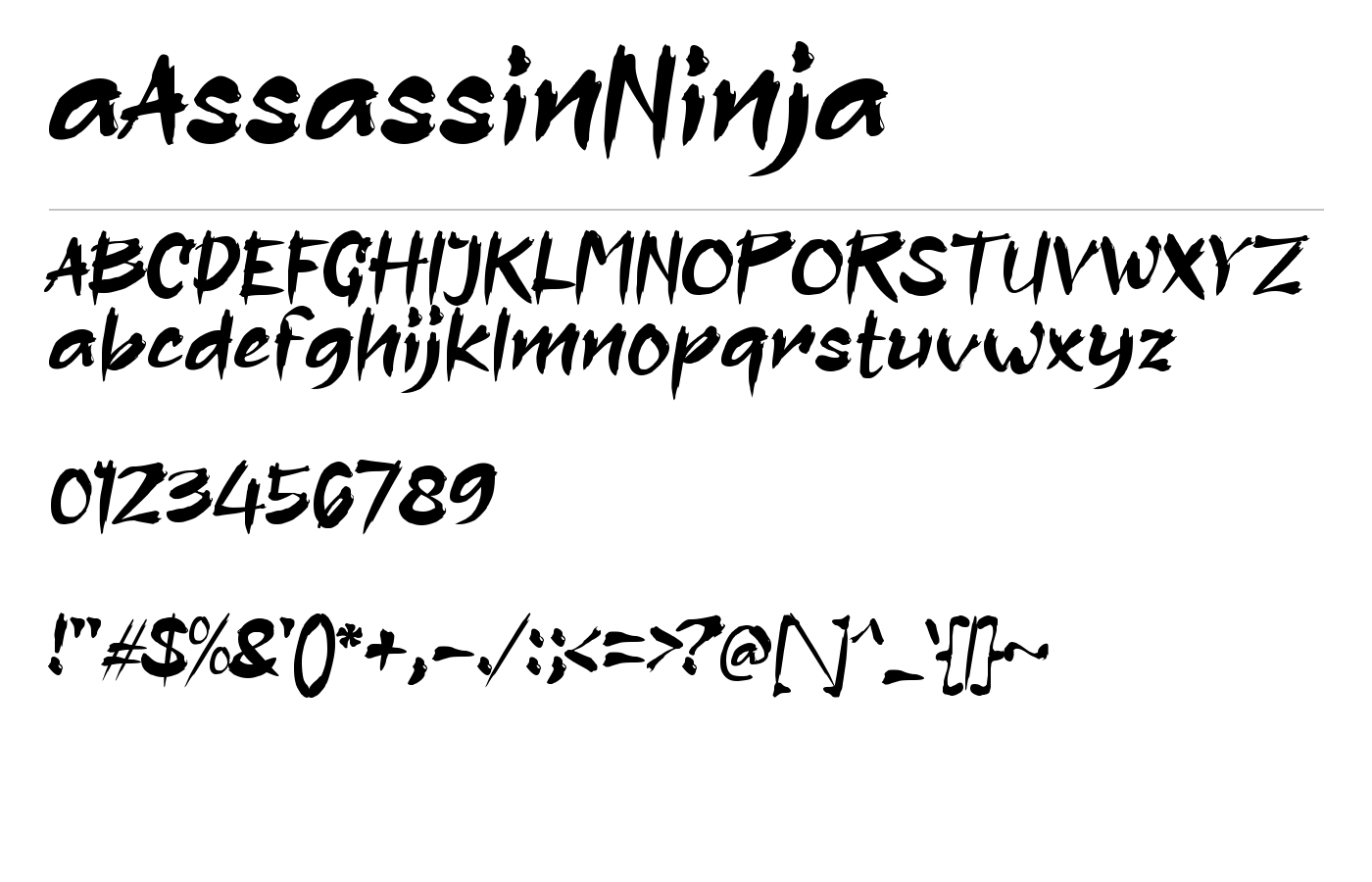
aAssassinNinja is a bold, brush-style script font with a dynamic and edgy feel, featuring sharp, irregular strokes that evoke a sense of action and stealth. Its high contrast and energetic letterforms make it ideal for creative designs seeking a rebellious, intense, or urban vibe. This font works well for eye-catching logos, posters, and headlines where a strong, distinctive personality is needed.
aAssassinNinja Font